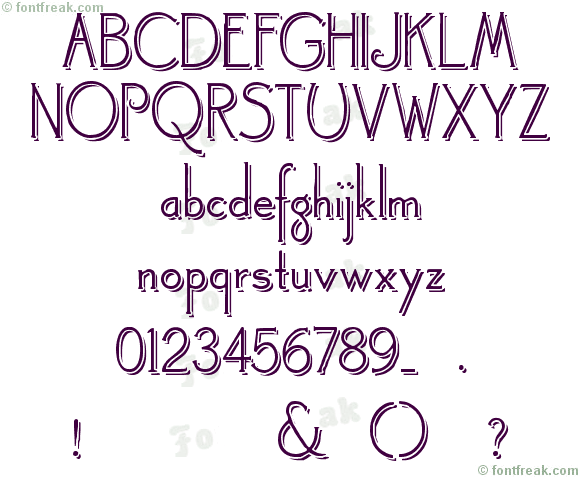
Landsdowne
Landsdowne Shadowed
About Landsdowne
Landsdowne, designed by Paul Lloyd in 2002, is a striking display font that falls into the decorative category. This typeface features a unique shadowed effect that adds depth and dimension, making it visually captivating. The strokes are moderately thick, providing a bold presence, while the contrast between the shadow and main text enhances readability. The spacing is well-balanced, allowing for clarity and ease of use in various applications.
This font is particularly well-suited for a range of creative projects. For wedding invitations, the elegant and whimsical nature of the Landsdowne font can add a personalized touch that resonates with the joyous occasion. In movie posters, it can evoke a sense of drama and intrigue, drawing attention to the film's title. Restaurant menus can benefit from its decorative flair, making dish names stand out and enticing diners. Additionally, it can be an excellent choice for branding elements, such as logos or signage, where a distinctive identity is essential.
What sets Landsdowne apart is its perfect blend of playfulness and sophistication, making it versatile enough for both formal and casual contexts. Its shadowed design not only captures attention but also conveys a sense of artistry that can enhance a variety of projects, making it a valuable addition to any designer's toolkit.